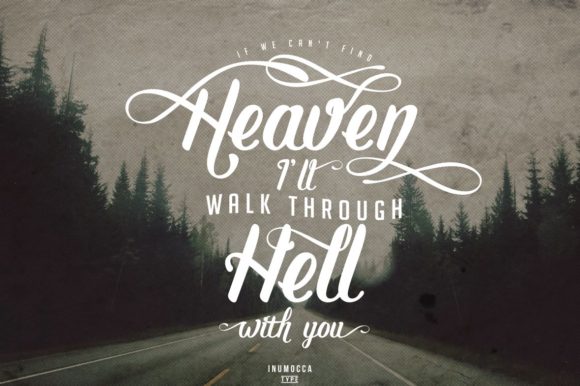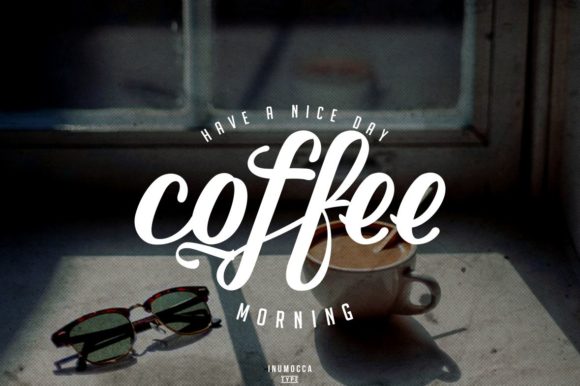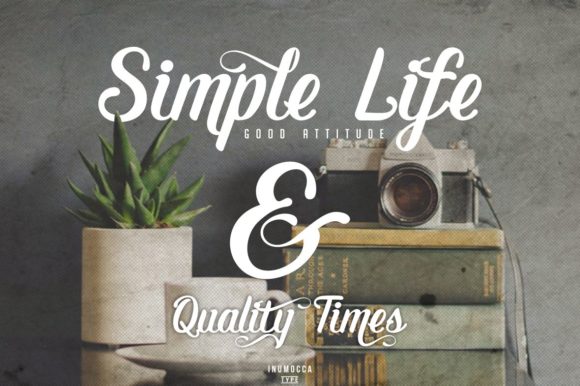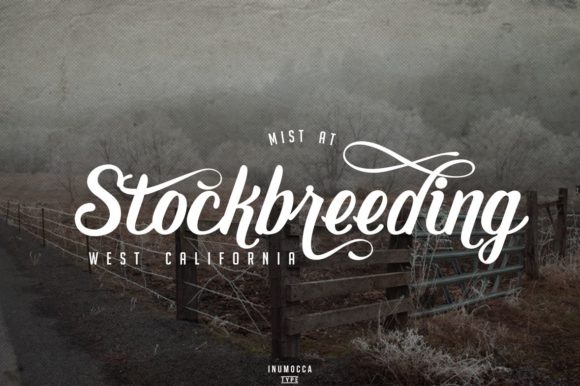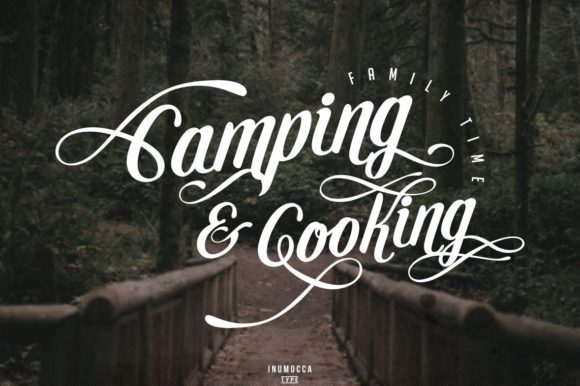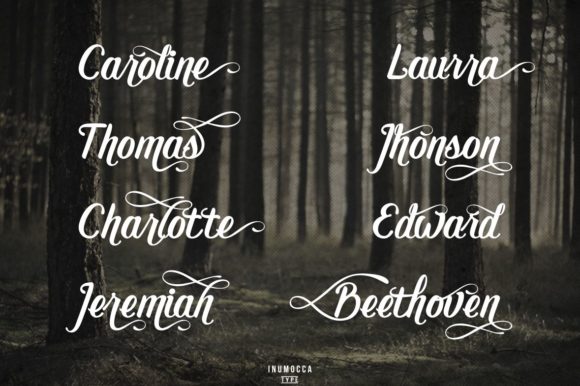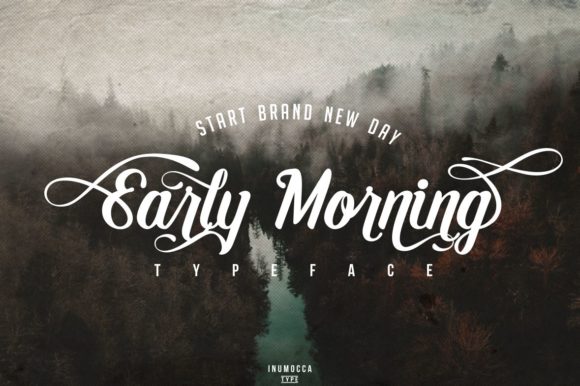
Rise and Shine! Discover the Sweetness of Early Morning Font
Are you a designer or crafter looking for a unique and breathtaking script to elevate your creative projects? Look no further than Early Morning Font, a sweet and stunning script that’s sure to shine a light on your work. In this article, we’ll dive into the world of Early Morning Font, exploring its amazing features, swashes, and uses.
What is Early Morning Font?
Early Morning Font is a beautiful script font that’s perfect for a variety of creative projects, from digital designs to handmade crafts. Its elegant and flowing curves evoke the warmth and serenity of a sunrise, making it an ideal choice for designs that require a touch of sweetness and sophistication.
Amazing Swashes and Features
One of the standout features of Early Morning Font is its amazing swashes. Swashes are decorative flourishes that can be used to add a touch of personality to your designs. With Early Morning Font, you’ll get access to a range of stunning swashes that can be used to create beautiful connections between letters, words, and phrases.
In addition to its swashes, Early Morning Font comes with a range of features that make it a versatile and user-friendly choice. These include:
- Multi-language support: Early Morning Font supports multiple languages, making it a great choice for designers and crafters who work with international clients or want to create designs that cater to a global audience.
- Alternate characters: The font comes with alternate characters that can be used to add variety and interest to your designs.
- Adjustable ligatures: Early Morning Font allows you to adjust the ligatures to create a customized look that suits your design style.
Uses for Early Morning Font
Early Morning Font is a versatile script that’s suitable for a wide range of creative projects, including:
- Digital designs: Use Early Morning Font to create stunning digital designs, such as social media graphics, blog headers, and email newsletters.
- Handmade crafts: Add a touch of elegance to your handmade crafts, such as cards, invitations, and scrapbooking projects.
- Branding and packaging: Use Early Morning Font to create beautiful branding and packaging designs that stand out from the crowd.
- Stationery and paper crafts: Create gorgeous stationery and paper crafts, such as journals, planners, and gift tags.
Tips for Using Early Morning Font
To get the most out of Early Morning Font, here are some tips to keep in mind:
- Experiment with swashes: Don’t be afraid to try out different swashes and combinations to create a unique look.
- Play with font sizes: Early Morning Font looks great in a range of font sizes, from large and bold to small and delicate.
- Mix and match with other fonts: Combine Early Morning Font with other fonts to create a stunning contrast and add visual interest to your designs.
| Font Name | Early Morning Font |
| Author | inumocca_type |
Early Morning Font is a sweet and breathtaking script that’s perfect for designers and crafters looking to add a touch of elegance and sophistication to their creative projects. With its amazing swashes, versatile features, and range of uses, this font is sure to shine a light on your work. So why not rise and shine with Early Morning Font today?